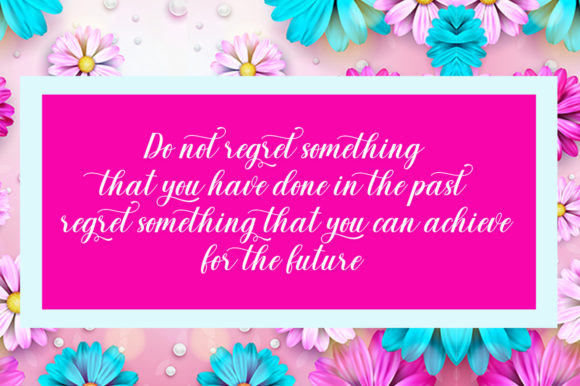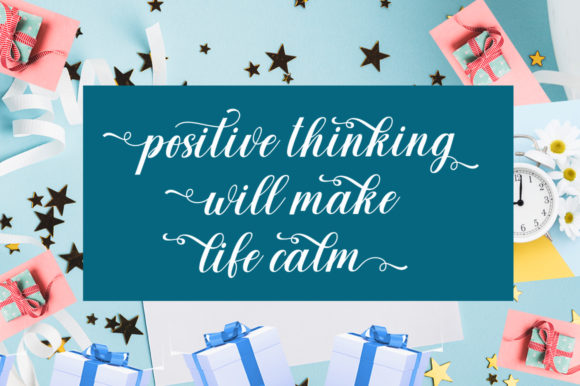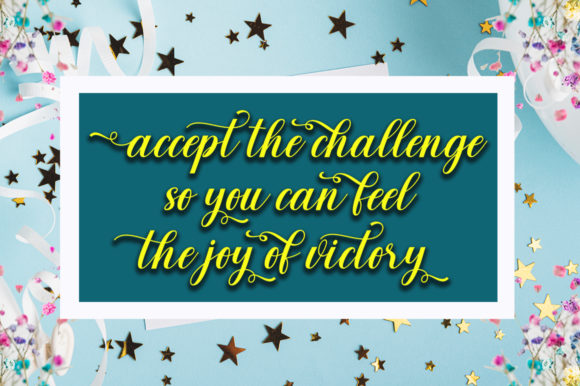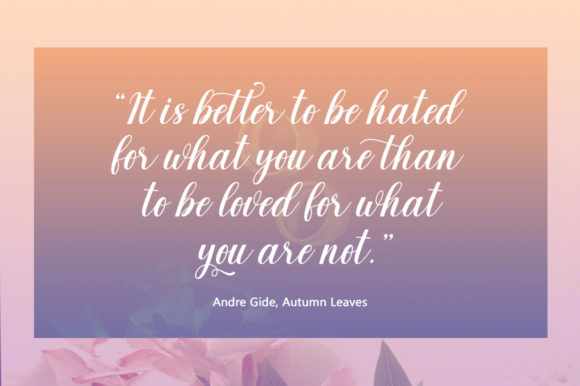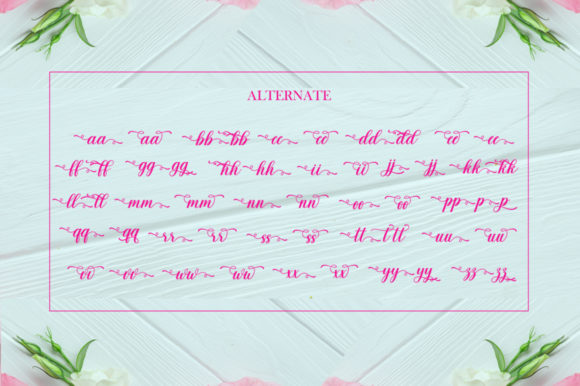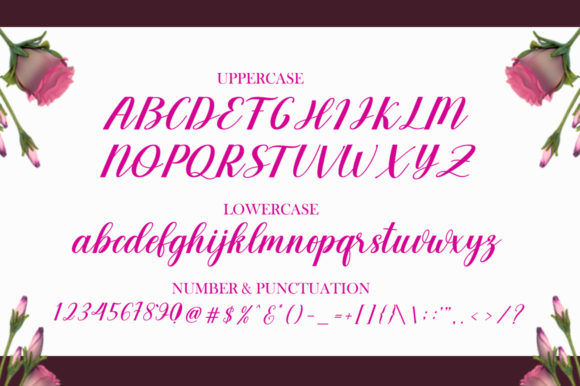
Discover the Charm of Endogan Font: Elevate Your Creative Projects with a Friendly and Versatile Script
Are you on the hunt for a font that can add a personal touch to your designs? Look no further than Endogan, a delightful handwritten script that exudes warmth and friendliness. This gorgeous font is perfect for designers, crafters, and DIY enthusiasts seeking to infuse their projects with a unique and artistic flair. In this article, we’ll dive into the world of Endogan Font, exploring its features, uses, and benefits, as well as provide tips on how to make the most of this incredible script.
What Makes Endogan Font So Special?
Endogan is a cute and casual handwritten font that boasts an incredibly friendly feel. Its gorgeous swashes and ligatures make it incredibly versatile, allowing you to use it for a wide range of creative projects. Whether you’re designing social media graphics, crafting calligraphy scripts, or working on DIY projects, Endogan is the perfect companion. Its unique charm and character will turn any idea into a true piece of art, making it an excellent choice for designers and crafters seeking to add a personal touch to their work.
Key Features of Endogan Font
- Cute and Casual Handwritten Style: Endogan’s handwritten script is both playful and elegant, making it perfect for a variety of design applications.
- Gorgeous Swashes and Ligatures: The font’s beautiful swashes and ligatures add a touch of sophistication and flair, making it ideal for creative projects that require a bit of elegance.
- Incredibly Friendly Feel: Endogan’s friendly and approachable style makes it perfect for designs that require a personal touch.
- Versatile and Adaptable: This script can be used for a wide range of projects, from social media graphics to calligraphy scripts and DIY projects.
Using Endogan Font for Instagram and Social Media Graphics
In today’s digital age, having a strong online presence is crucial. With Endogan Font, you can create stunning social media graphics that showcase your personality and style. Its cute and casual handwritten style makes it perfect for Instagram posts, stories, and bio descriptions. Use Endogan to add a personal touch to your social media graphics and stand out from the crowd.
Endogan Font for Calligraphy Scripts and DIY Projects
For crafters and DIY enthusiasts, Endogan Font is a dream come true. Its gorgeous swashes and ligatures make it perfect for calligraphy scripts, adding a touch of elegance and sophistication to any project. Use Endogan to create beautiful handmade cards, gift tags, and other paper crafts that showcase your creativity and skill.
- Use Swashes and Ligatures: Take advantage of Endogan’s gorgeous swashes and ligatures to add a touch of elegance and sophistication to your designs.
In conclusion, Endogan Font is a versatile and charming script that’s perfect for designers, crafters, and DIY enthusiasts seeking to add a personal touch to their projects. Its cute and casual handwritten style, gorgeous swashes and ligatures, and incredibly friendly feel make it an excellent choice for a wide range of creative applications. Whether you’re designing social media graphics, crafting calligraphy scripts, or working on DIY projects, Endogan Font is sure to become your new go-to script. So why wait? Download Endogan Font today and start creating your own unique and artistic designs!